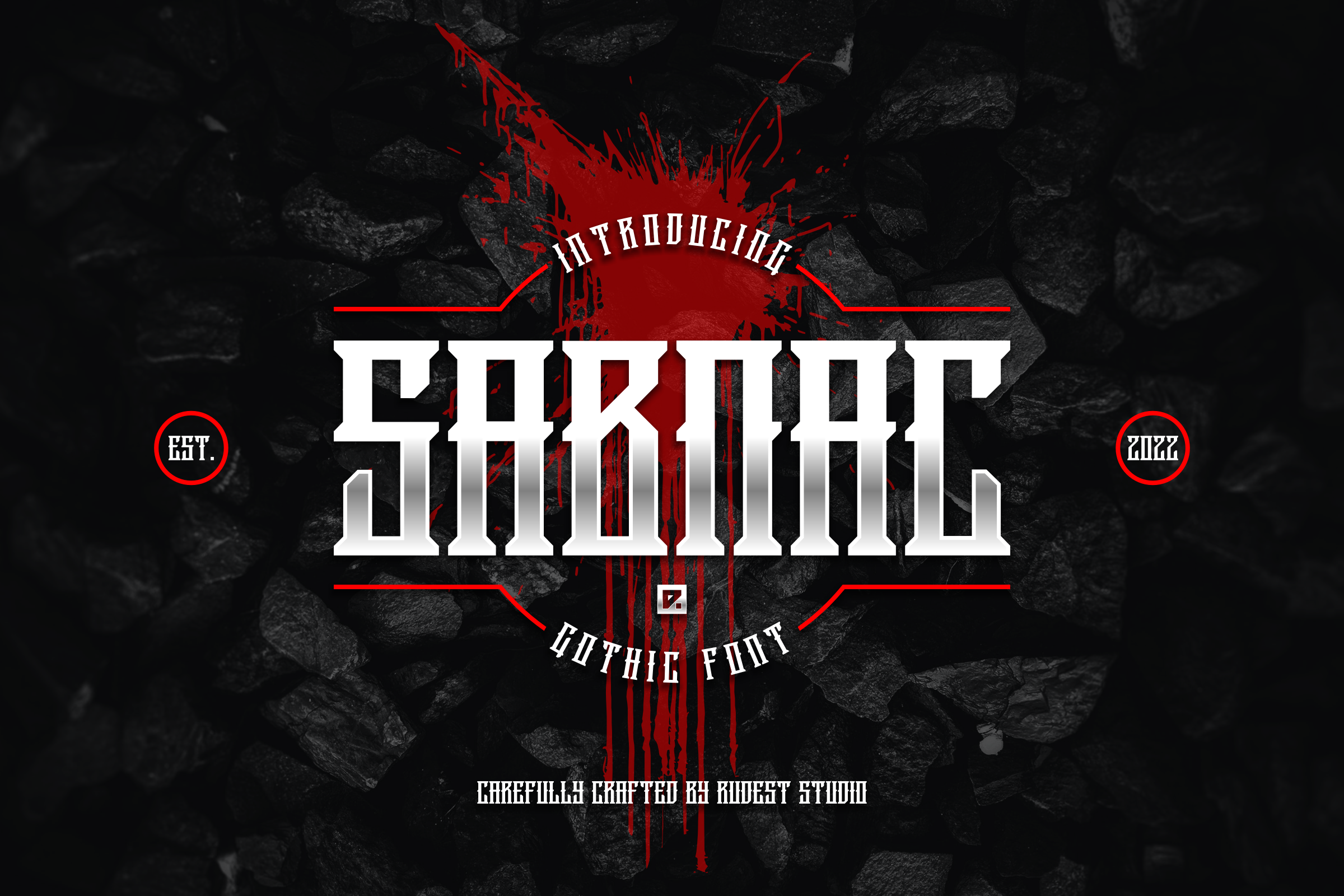
SABNAC - Gothic Font
SABNAC is a Decorative/Gothic font, designed with high precision of the letters. This font has consistent strokes that give geometric looks. SABNAC is inspired by the gothic era and hardcore culture that perfect for Poster, Flyer, and Merchandise, etc.